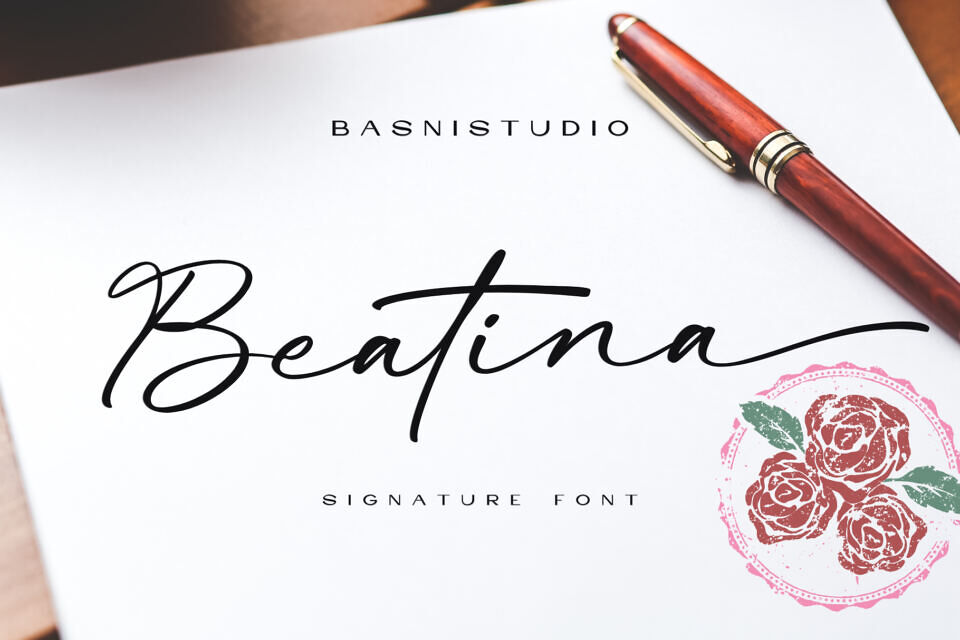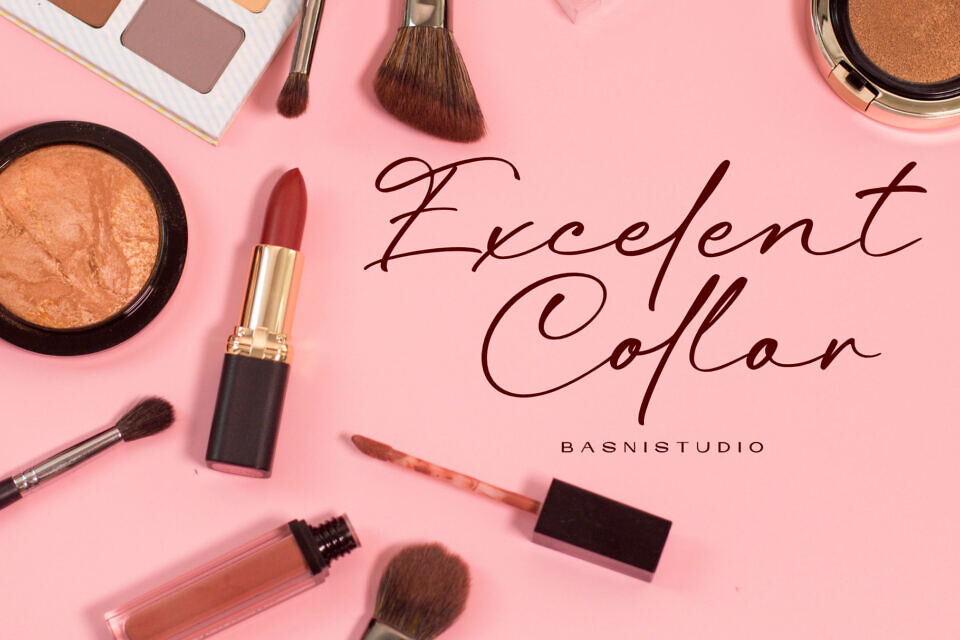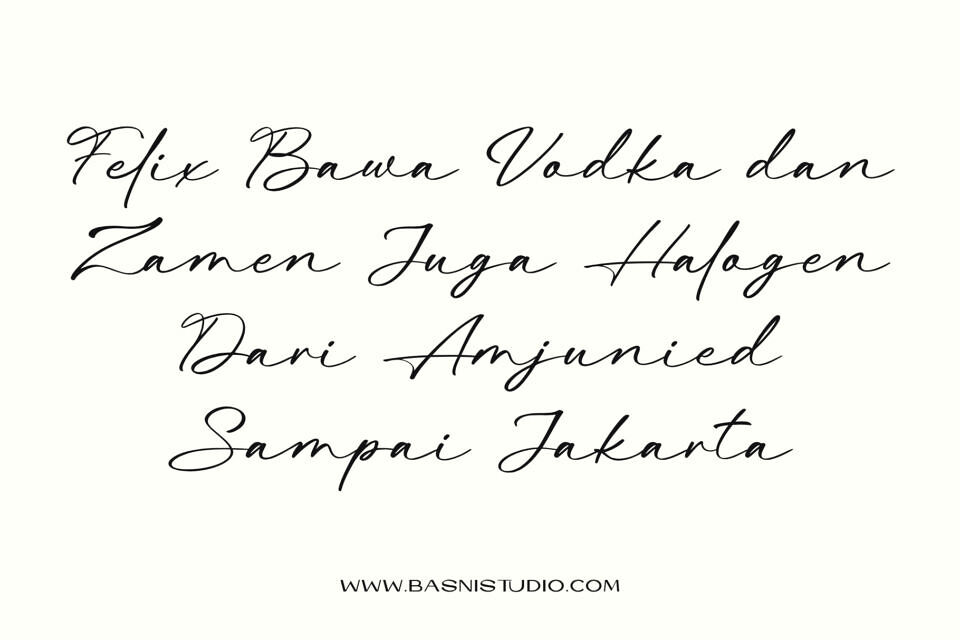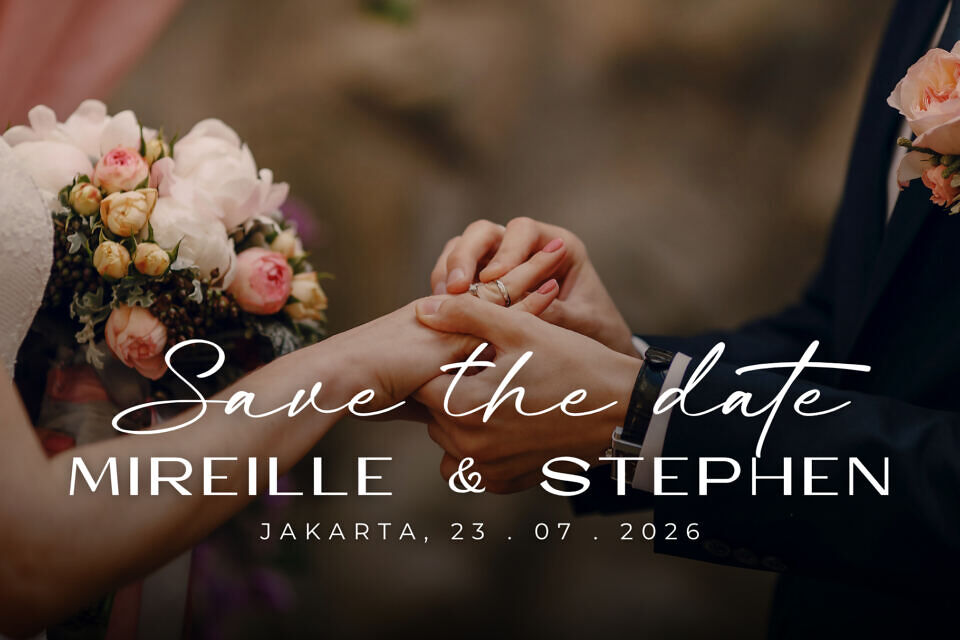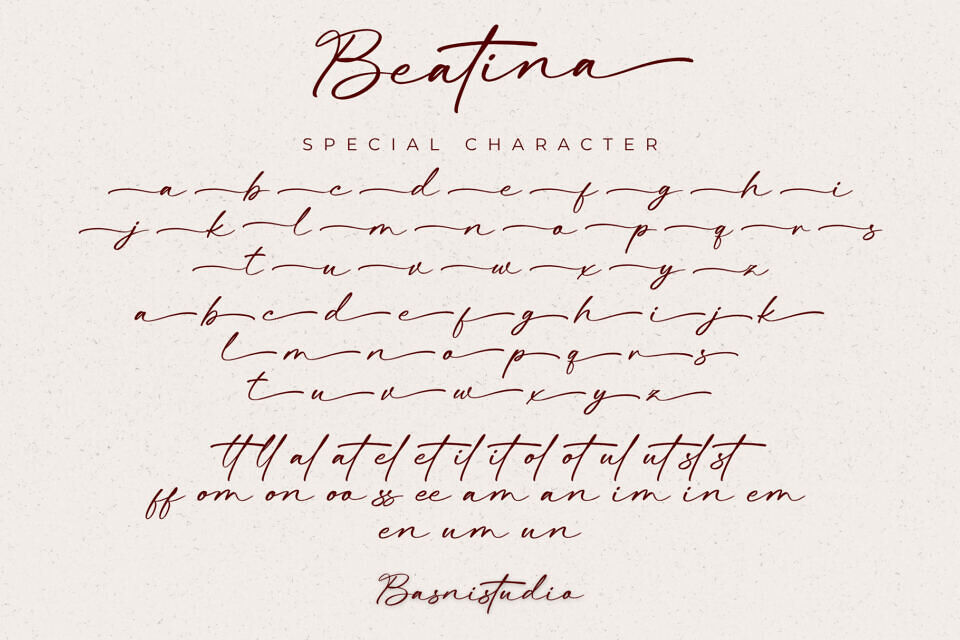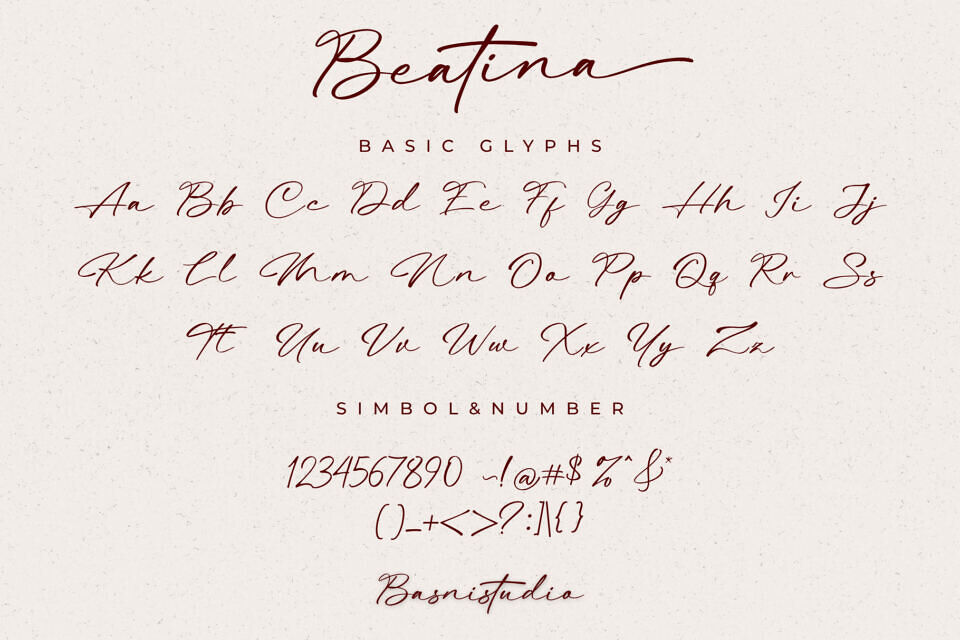
Experience luxury with Beatina, a sophisticated font that combines high-end style with organic design. Its elegant curves evoke the fluid motion of a fountain pen on paper.
With its refined lines and sweeping swashes, Beatina adds a personal touch to any layout, making it perfect for business cards, luxury branding, wedding stationery, and high-end packaging. Its smooth contours ensure clarity in various designs, from minimalist to textured layouts, elevating plain layouts with its unique, flowing cursive style.